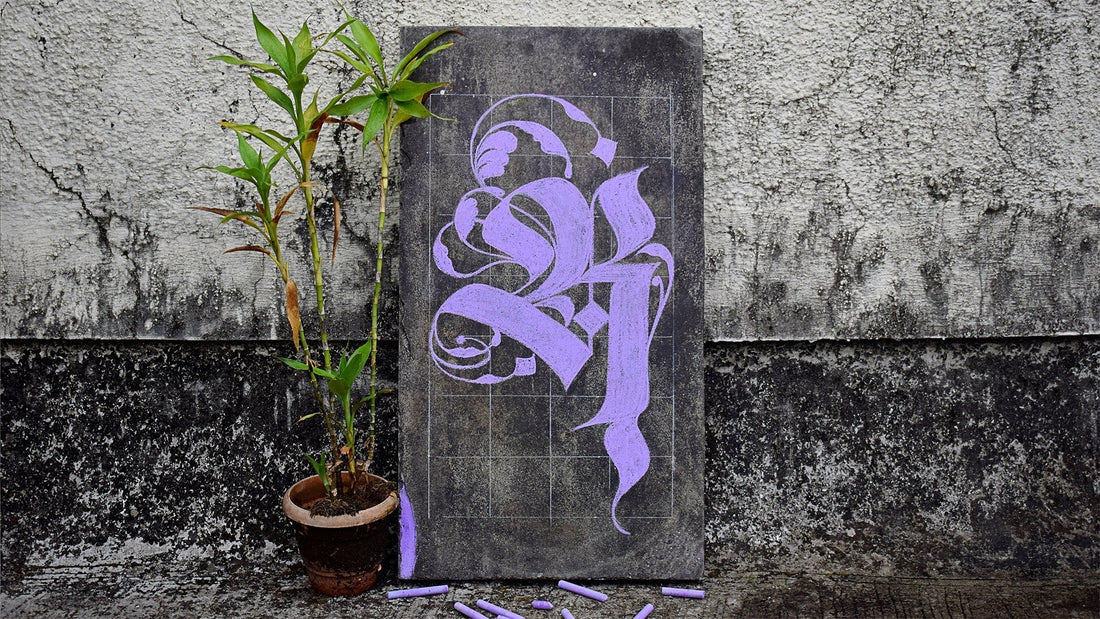
Of all the Blackletter styles, none has left a mark quite like Fraktur. It’s ornate, unmistakably German, and steeped in both artistic achievement and political controversy. For centuries, Fraktur was not just a script — it was the script for the German-speaking world. If you've followed our exploration of Blackletter's many faces — starting with The Bold Beauty of Medieval Script and through styles like Textura, Rotunda, and Schwabacher — then you're ready to meet the style that brought Blackletter into the modern era.
A Style Born of Prestige
Fraktur was developed in the early 16th century under the patronage of Emperor Maximilian I. He commissioned new typefaces for imperial publications, aiming to blend the Gothic tradition with a more elaborate, courtly feel. The result was Fraktur: a script that married the backbone of Blackletter with Renaissance flair. Its name comes from the Latin fractura, meaning “broken,” referring to the sharp angles and disjointed curves that define the style. But Fraktur also introduced flourishes, swashes, and ornamentation that made it visually rich and highly stylized — perfect for royal decrees, literature, and eventually, everyday print.
Defining Characteristics
Fraktur stands apart even within the Blackletter family. Look for:
- Broken curves, especially in lowercase letters like o and d
- Highly decorated capitals, often with dramatic loops and extensions
- Elaborate ligatures, connecting letters with flair
- Mix of vertical and diagonal stress, adding dynamic energy
While Textura feels rigid and Schwabacher friendly, Fraktur is theatrical — a script that performs on the page.
Germany’s National Script
From the 16th to the early 20th century, Fraktur was the dominant script in German-speaking countries. Everything from newspapers and novels to schoolbooks and official documents was printed in Fraktur. It became deeply entwined with national identity — so much so that it was often referred to simply as ‘die deutsche Schrift’ (the German script). For centuries, knowing Fraktur was essential to literacy in Germany. It symbolized continuity, tradition, and cultural pride.
A Complicated History
Ironically, Fraktur’s downfall came not from foreign influence but from within. In 1941, the Nazi regime abruptly banned Fraktur, labeling it “Schwabacher Judenlettern” (Schwabacher Jewish letters) — a wildly inaccurate claim likely rooted in convenience and propaganda. The shift aimed to align with international modernism and make German writing more legible abroad. This sudden rejection, after centuries of use, left Fraktur tainted by association and hastened its decline in everyday life.
Fraktur Today: Revival and Reclamation
In recent decades, Fraktur has experienced a cautious but creative resurgence. Type designers, calligraphers, and artists are reinterpreting the style — either leaning into its expressive potential or subverting its historical baggage. You’ll see Fraktur-inspired type in music branding, beer labels, fashion, and streetwear — anywhere a sense of heritage or drama is called for. Crucially, modern use often strips away the nationalist overtones and reclaims Fraktur as part of a wider, global design language.
Final Thought: Beauty in the Broken
Fraktur is a script of paradoxes: elegant yet sharp, traditional yet rebellious, admired yet misunderstood. Its flourishes carry centuries of meaning, complexity, and craft. To write in Fraktur is to participate in a long and complicated legacy — one that still has something to say.